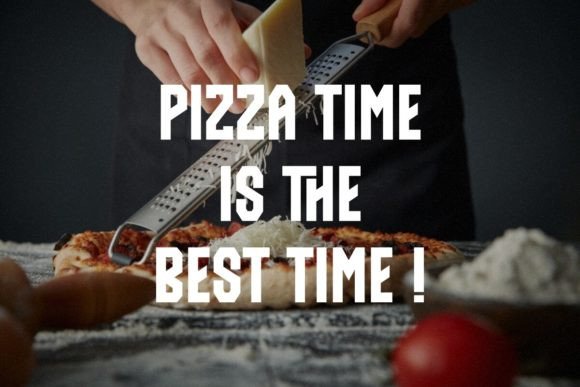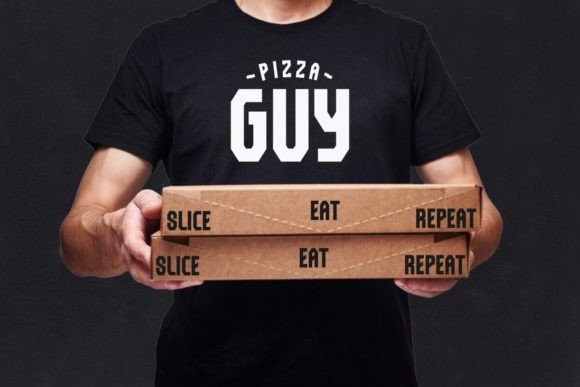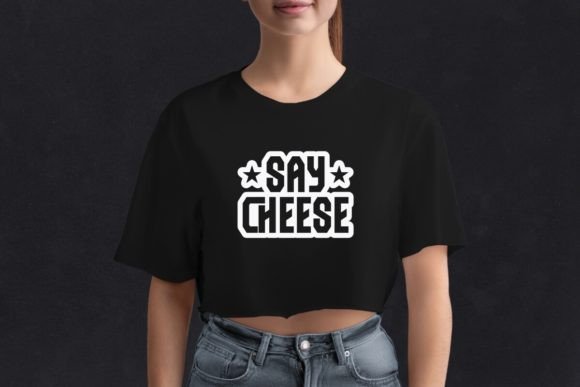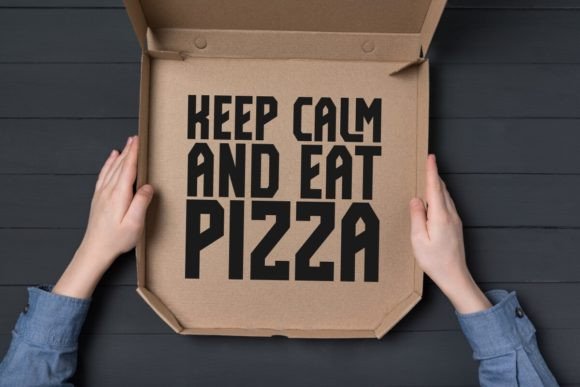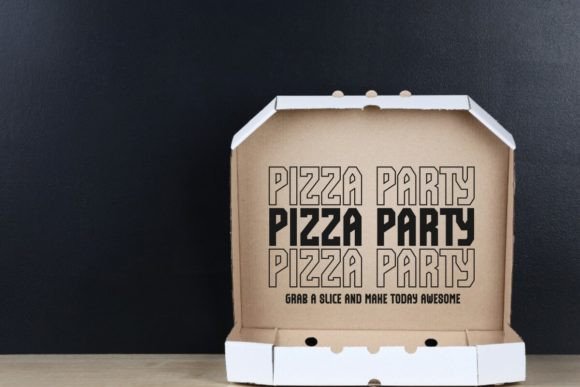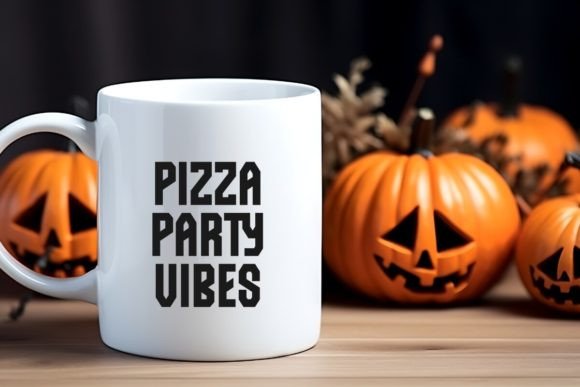
Adding a Slice of Vintage Charm to Your Designs
Have you ever stumbled upon a retro pizza box design that instantly transports you to a bygone era? That’s the magic of the Black Pizza Font, a bold and timeless sans serif font that’s sure to bring a touch of nostalgia to your food-related branding projects.
This versatile font is specifically designed for pizza box covers, food labels, and other promotional materials, but its unique charm also makes it a great choice for quotes, apparel mockups, and social media advertising. Whether you’re a foodie entrepreneur or a designer looking to add a vintage twist to your projects, the Black Pizza Font is a valuable asset that’s sure to elevate your brand’s style and sophistication.
Black Pizza Font Key Features
- Font Family: Black Pizza Font is a unique, bold sans-serif font designed for use in modern branding and digital applications.
- Character Set: Includes a wide range of characters, including uppercase and lowercase letters, numbers, and punctuation marks, as well as accented characters and symbols.
- Unique Characteristics: Black Pizza Font features a distinctive, bold design with a sleek and modern aesthetic, making it ideal for use in branding, advertising, and digital design projects.
Black Pizza Font Review
First off, I want to say that the Black Pizza Font has some great qualities that make it stand out. ✨ Its sleek, modern design makes it perfect for anyone looking to add a touch of sophistication to their website or design project. The bold lines and sharp edges give it a striking appearance that’s sure to grab attention. ✨ The font also comes in a range of weights and styles, making it highly versatile and adaptable to different design needs.
However, I do have to mention a few limitations that may affect its usability. ⚠️ For one, the font may not be the best choice for text-heavy content, as it can be a bit overwhelming and difficult to read in large quantities. ⚠️ Additionally, some users may find the font’s design to be a bit too edgy or avant-garde, which may not appeal to everyone’s taste.
In conclusion, the Black Pizza Font is a great choice for designers looking to add a bold and modern touch to their work. While it may have some limitations, its unique design and versatility make it a valuable addition to any design arsenal. With some careful consideration of its uses and limitations, I highly recommend giving it a try.
- ✨ Sleek and modern design
- ✨ Highly versatile and adaptable
- ⚠️ May be overwhelming for text-heavy content
- ⚠️ May not appeal to users with conservative design tastes
For a more dramatic effect, pair the Black Pizza Font with bold, colorful graphics and textures.
For a unique look, experiment with combining the Black Pizza Font with creative layer blending modes and effects.
For a cohesive look, pair the Black Pizza Font with matching colors and backgrounds.
The Black Pizza Font is ideal for:
- Event invitations and promotional materials.
- Restaurant and cafe menus.
Remember to use the Black Pizza Font in moderation to avoid overwhelming your design.
Montserrat is a modern sans-serif font that is highly legible and versatile. It is perfect for use in digital and print media, making it a great alternative to Black Pizza Font. Montserrat has a more geometric and clean design compared to Black Pizza Font’s bold and playful look.
Great Vibes is a handwritten font that has a unique and creative style. It is ideal for use in titles, headings, and quotes, where you want to add a touch of personality to your design. Great Vibes has a more elegant and sophisticated look compared to Black Pizza Font’s bold and casual style.